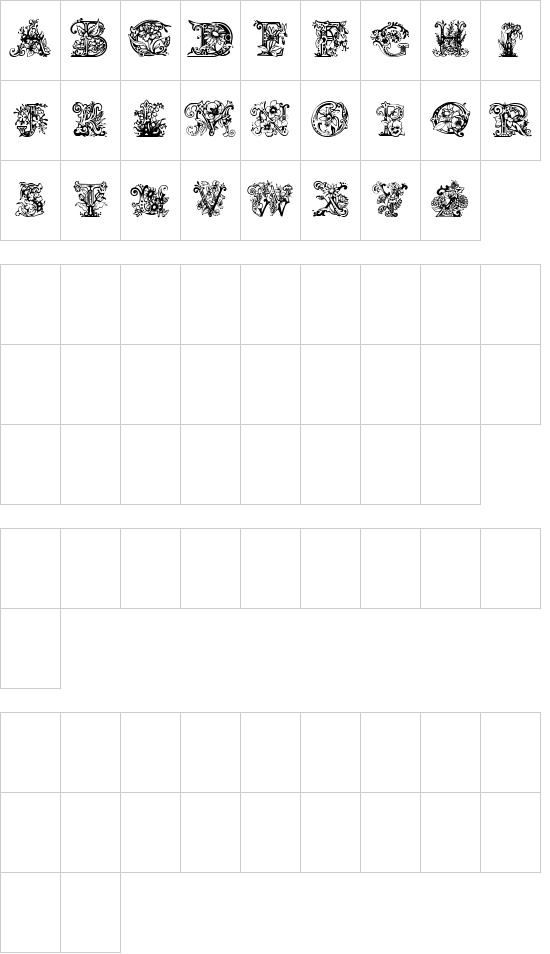
Lime Blossom Caps is a retro initial-caps font with oversized, decorative letters made for ornamental drop caps. Each capital carries vintage flourishes and detailing meant to anchor the start of a passage with a flourish rather than to set running text.
That charm suits storybook openings, wedding stationery, certificate flourishes, and elegant chapter headers. Lime Blossom Caps is free to download as a TrueType file, and you can preview it with your own letters to see how each decorated capital reads as an opening drop cap.